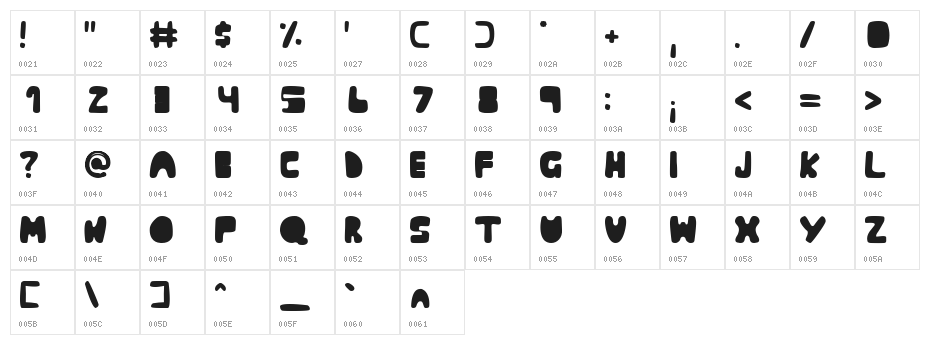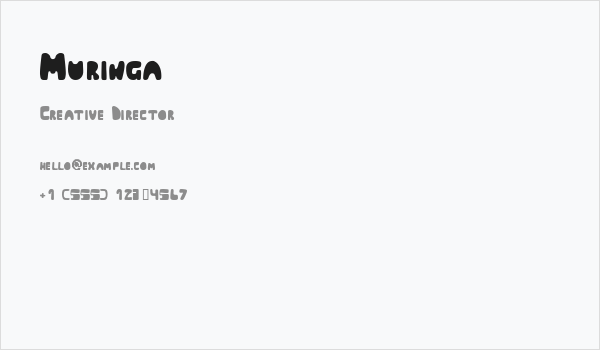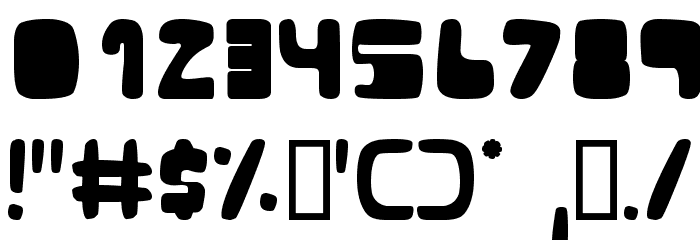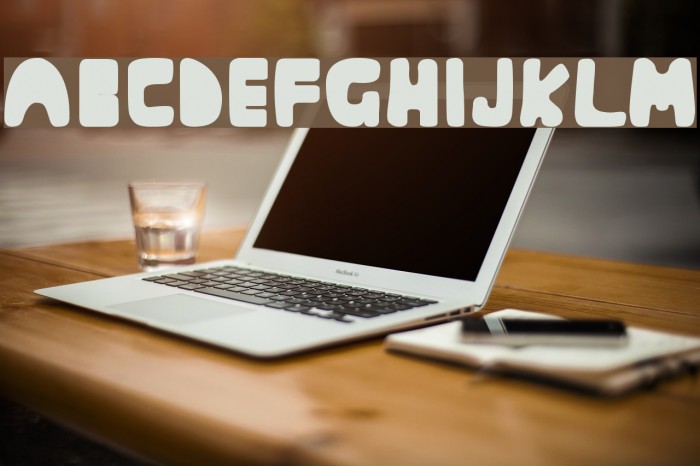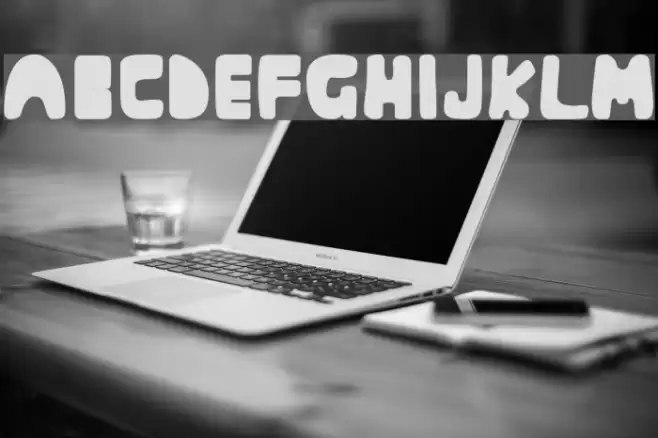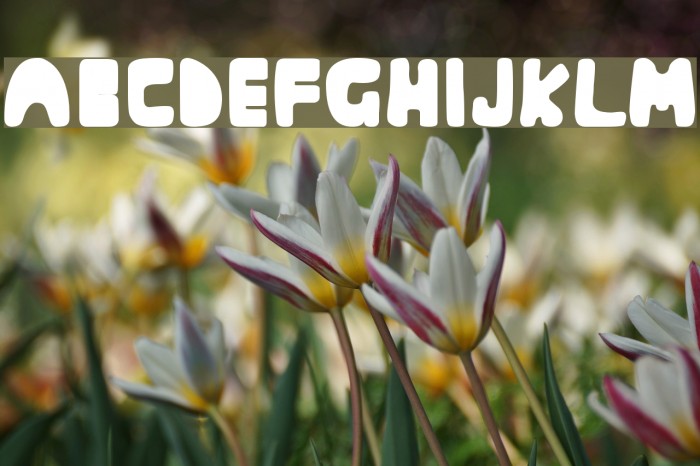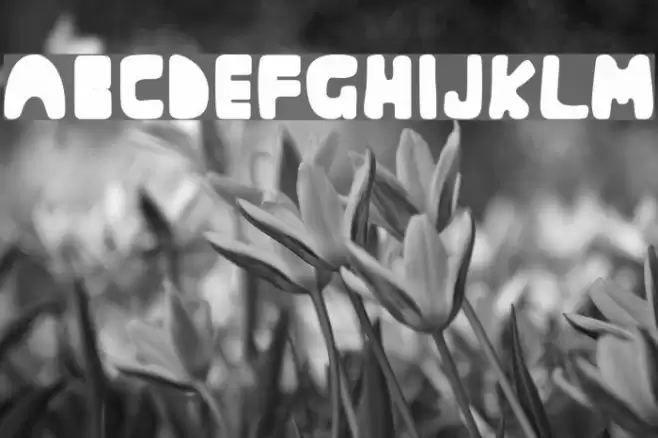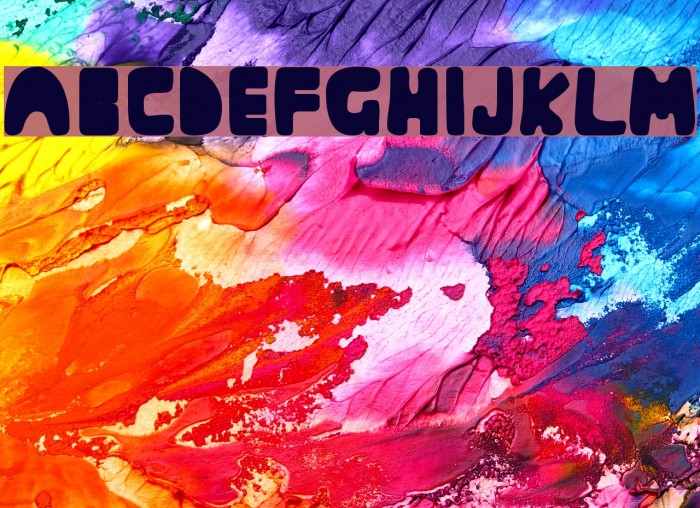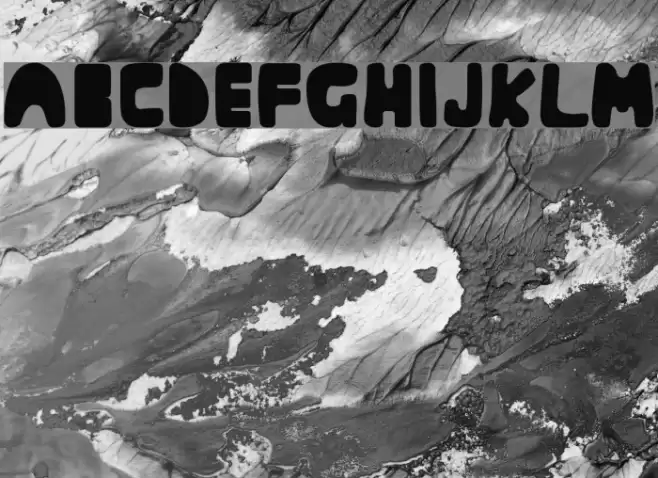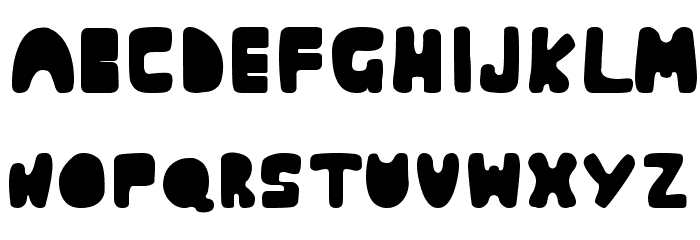
Muringa Font
Muringa Description
This font features a bold and playful design with rounded, thick strokes that give it a friendly and approachable appearance. The characters are uniformly wide, contributing to a cohesive and balanced look. The uppercase and lowercase letters maintain a consistent style, with the lowercase being slightly smaller but equally bold. Numbers are clear and easy to read, matching the overall aesthetic. Special characters are creatively designed, adding a unique flair to the font. This style is perfect for projects that require a fun and engaging typeface.
| Overall Style | Playful, Modern |